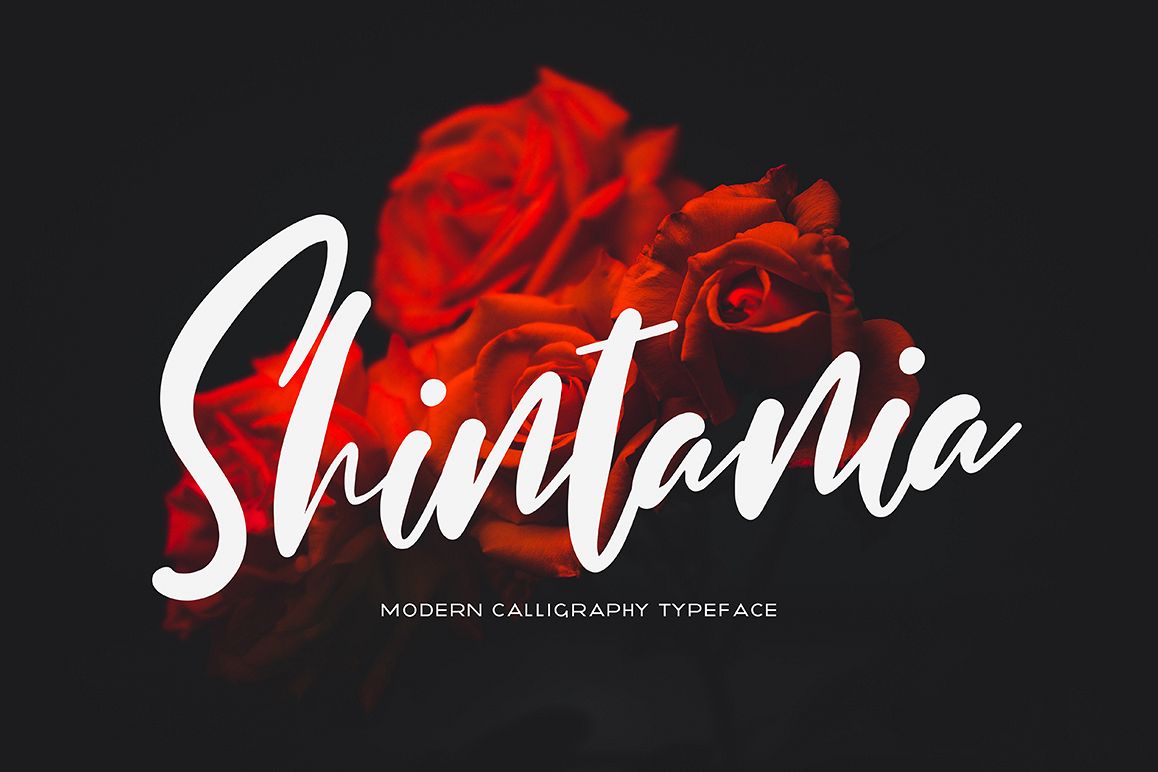
Created By Pineungtype
Shintania
Shintania script font with modern style, this font will perfect for many different project ex: quotes, logo, blog header, poster, banding, fashion, apparel, letter, invitation, stationery, etc...
Shintania
By Pineungtype